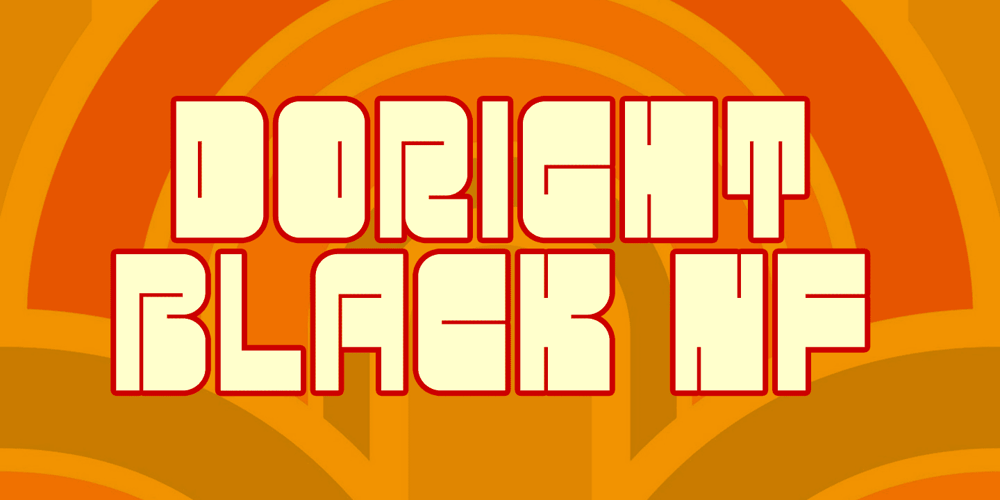
Doright Black NF Font Family was designed by Nick Curtis, Dan X. Solo and published by Nick’s Fonts. Doright Black NF contains 1 styles and family package options. This typeface takes its design cues from Dudley Upright, a Dan X. Solo find from the sixties. This version is considerably wider than the original, which increases its legibility while retaining its flower-power vibe. Both flavors of this font feature the 1252 Latin, 1250 Central European, 1254 Turkish and 1257 Baltic character sets.